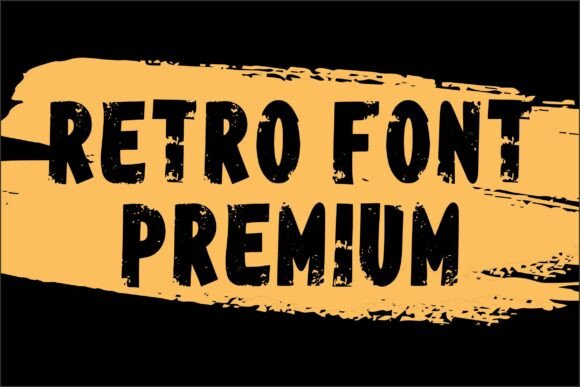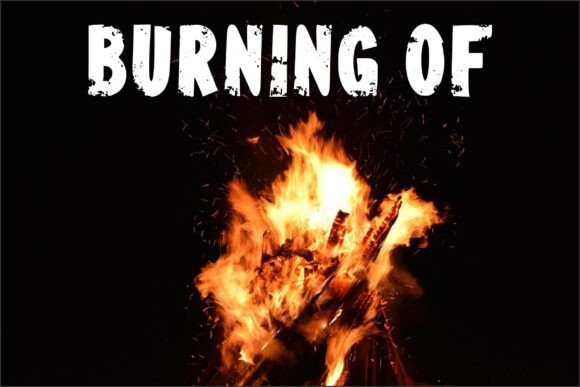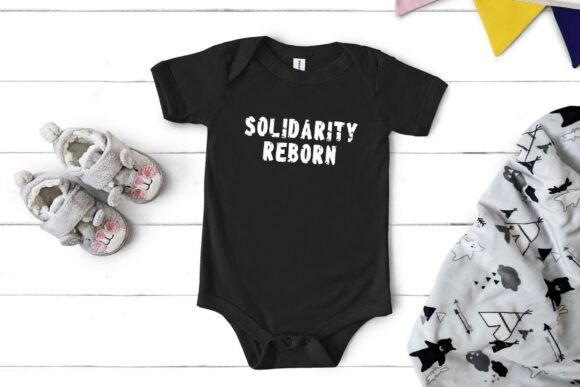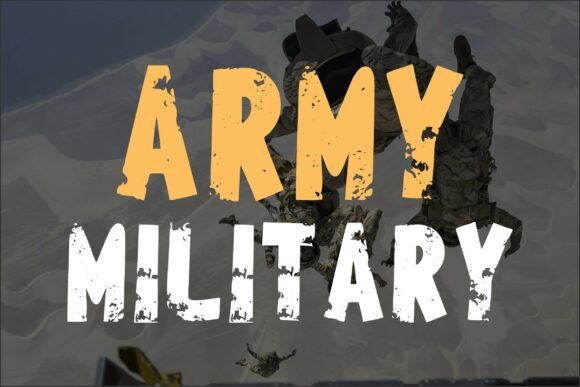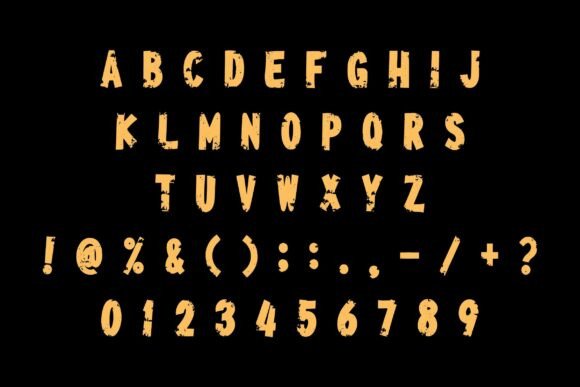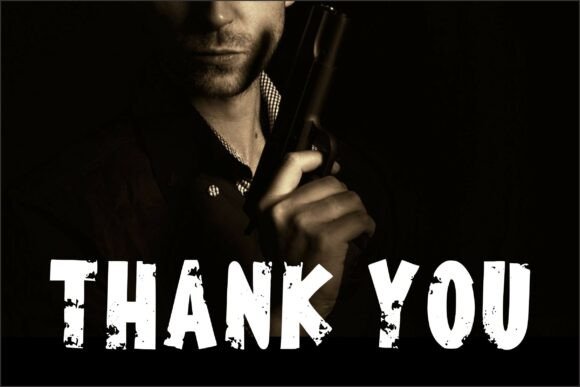
Introduction to Sketch Project Font
Have you ever been in the middle of a creative project, surrounded by scraps of paper, half-finished designs, and the faint scent of coffee? The room is cluttered, yet somehow, your mind is crystal clear. You’re on a roll, and nothing can stop you – not even the most daunting design challenges. It’s moments like these that make us remember why we fell in love with design in the first place.
As designers, we’re constantly on the lookout for that perfect font that captures the essence of our creative vision. That’s where Sketch Project Font comes in – a game-changing typeface that embodies the raw energy of urban rebellion and underground design. With its bold and distressed aesthetic, this font is not for the faint of heart. It’s a high-quality design resource that demands attention and sparks imagination.
Whether you’re working on a free download project or a high-stakes creative brief, Sketch Project Font is an invaluable addition to your design arsenal. Its transparent background and fearless attitude make it the perfect companion for designers who refuse to play it safe.
Key Features of Sketch Project Font
- High-quality design: Sketch Project Font is a premium font designed for creative projects, offering a unique and sophisticated look.
- Transparent background: This font features a transparent background, allowing designers to easily overlay it on any image or design without any distracting backgrounds.
- Extensive character set: This font includes a wide range of characters, including uppercase and lowercase letters, numbers, and special symbols, making it an ideal choice for creative projects.
- Perfect for design and art projects: Sketch Project Font is specifically designed for creative projects, such as logos, graphics, and artwork, where a unique and high-quality font is essential.
Honest Review: Sketch Project Font
As a designer, I’m always on the lookout for high-quality design resources to elevate my creative projects. The Sketch Project Font has been a game-changer for me, and I’m excited to share my honest review with you.
- ✨ The font is incredibly versatile, suitable for a wide range of creative projects, from digital design to print materials.
- ✨ The transparent background feature is a huge plus, making it easy to integrate with any design element.
While the Sketch Project Font is an excellent addition to any designer’s toolkit, there are a few limitations to consider:
- ⚠️ The font may not be suitable for projects that require a high level of customization, as it’s a more general-purpose font.
Overall, I’m thoroughly impressed with the Sketch Project Font. It’s a reliable, high-quality design resource that has become a staple in my creative workflow. If you’re looking for a free, versatile font that’s perfect for a wide range of projects, I highly recommend giving it a try.
Sketch Project Font
The Sketch Project Font is a high-quality design resource perfect for creative projects. It’s available for free download, making it an excellent addition to any design toolkit.
To get the most out of the Sketch Project Font, use it with a transparent background to create a seamless design. You can also experiment with different font sizes and styles to add visual interest to your project.
The Sketch Project Font is perfect for a variety of creative projects, including graphic design, digital art, and even web design. Its high-quality design makes it an excellent choice for any project that requires a professional and creative look.